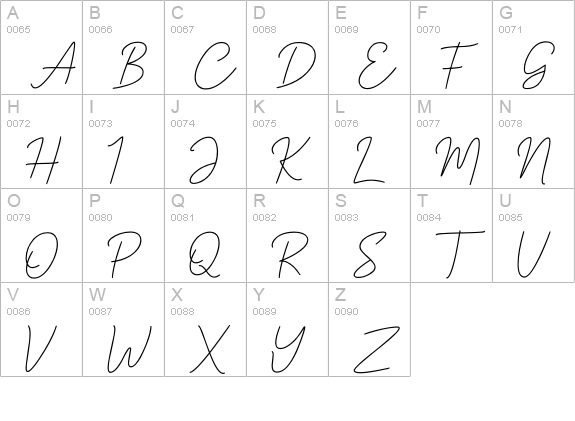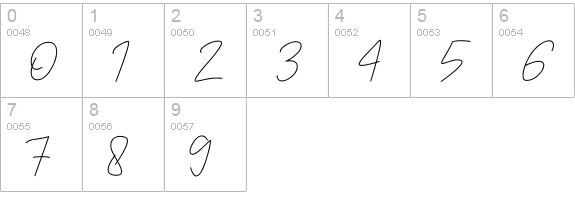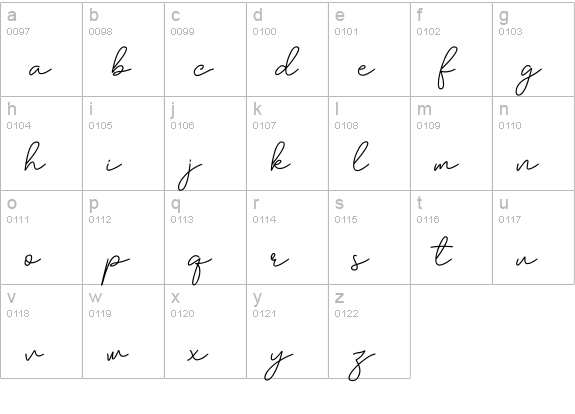
Andalusia Font Details
Andalusia is a free for personal use font in the Script > Handwritten category, designed by bluestype_studio. It has been downloaded 213 times and is available for Windows, Mac and Linux.
The Andalusia font is a stunning display typeface that exudes elegance and sophistication. With its intricate details and graceful curves, this font is perfect for adding a touch of luxury to your designs. Whether you're working on a branding project, wedding invitations, or any other creative endeavor, Andalusia font will surely make a statement.